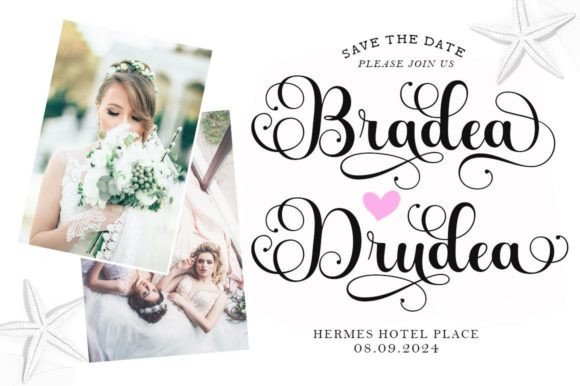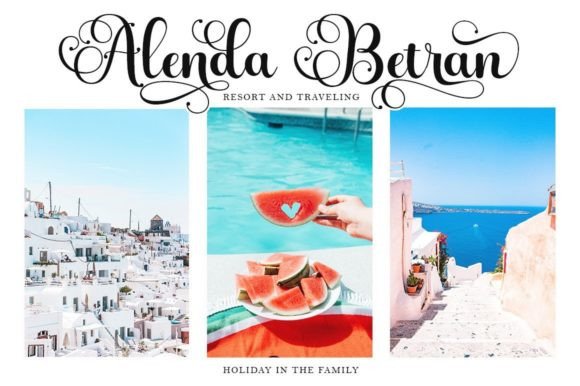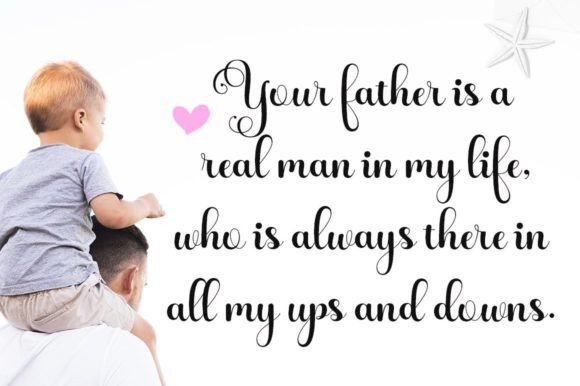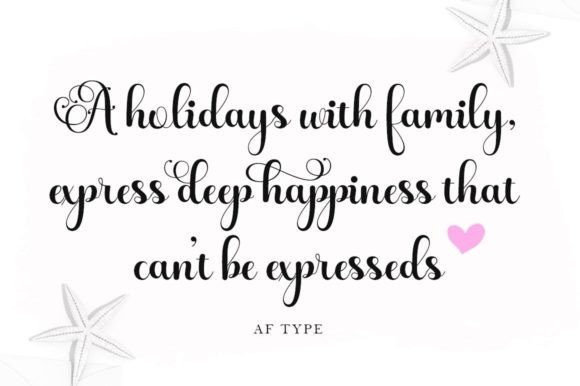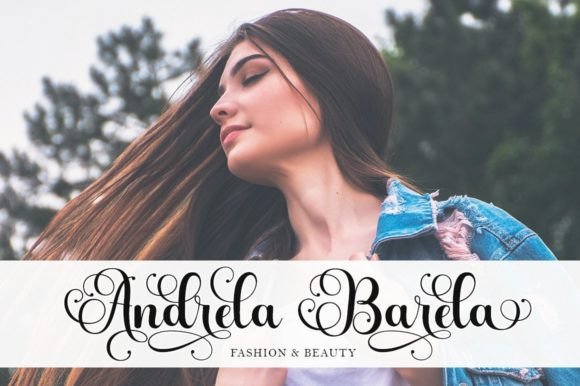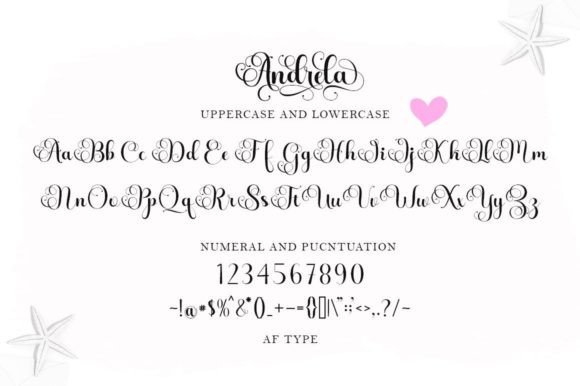
Introducing Andrela Font: Elevate Your Designs with Elegant Script
Are you a designer or crafter looking for a font that exudes elegance and sophistication? Look no further than Andrela Font, a stunning script font that brings a touch of classic calligraphy to your modern designs. In this article, we’ll dive into the world of Andrela Font, exploring its features, benefits, and uses, and why it’s the perfect addition to your typography collection.
The Inspiration Behind Andrela Font
Andrela Font is inspired by timeless classic calligraphy, with a contemporary twist that makes it perfect for modern designs. The font’s creator aimed to strike a balance between traditional elegance and modern flair, resulting in a script font that is both refined and versatile. With Andrela Font, you can add a touch of sophistication to your projects, from branding and advertising to packaging and digital media.
Key Features of Andrela Font
So, what makes Andrela Font so special? Here are some of its key features:
- Elegant and Refined: Andrela Font boasts an elegant and refined design, perfect for projects that require a touch of sophistication.
- Contemporary Atmosphere: With its modern twist, Andrela Font is well-suited for contemporary designs that demand a fresh and stylish approach.
- Impeccable Form: The font’s impeccable form ensures that it remains legible and beautiful, even at small sizes.
- Balanced and Varied: Andrela Font features a balanced and varied design, with strokes that are not too thin or too thick, making it perfect for a wide range of applications.
Benefits of Using Andrela Font
So, why should you choose Andrela Font for your projects? Here are some benefits of using this stunning script font:
- Adds Elegance to Your Designs: Andrela Font is the perfect way to add a touch of elegance and sophistication to your designs, making them stand out from the crowd.
- Versatile and Flexible: With its balanced and varied design, Andrela Font can be used for a wide range of applications, from headings and titles to body text and more.
- Legible and Readable: The font’s impeccable form ensures that it remains legible and readable, even at small sizes, making it perfect for digital media and print applications.
- Perfect for Branding and Advertising: Andrela Font is well-suited for branding and advertising projects, where a touch of elegance and sophistication can make all the difference.
Using Andrela Font in Your Designs
So, how can you use Andrela Font in your designs? Here are some ideas to get you started:
- Branding and Logo Design: Use Andrela Font to create stunning brand identities and logos that exude elegance and sophistication.
- Advertising and Marketing: Add a touch of elegance to your advertising and marketing materials, from brochures and flyers to social media graphics and more.
- Packaging Design: Use Andrela Font to create beautiful packaging designs that stand out on store shelves and online.
- Digital Media: Add a touch of elegance to your digital media, from website headers and titles to social media graphics and more.
In conclusion, Andrela Font is a stunning script font that brings a touch of classic calligraphy to your modern designs. With its elegant and refined design, contemporary atmosphere, and impeccable form, this font is perfect for designers and crafters looking to add a touch of sophistication to their projects. Whether you’re working on branding and advertising, packaging design, or digital media, Andrela Font is the perfect choice. So why wait? Download Andrela Font today and elevate your designs to the next level!